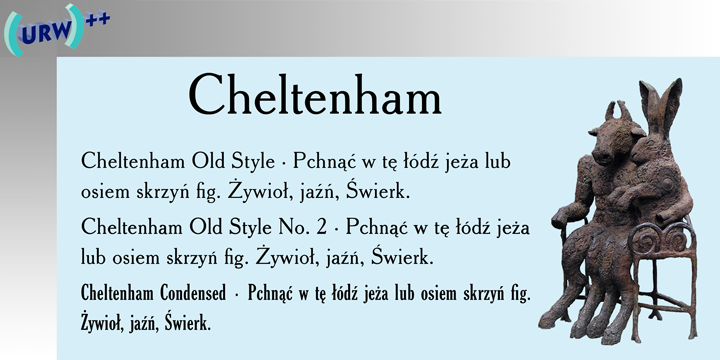
Cheltenham Old Style Font is ideal for book publishing, newspaper headlines, magazine layouts, academic papers, historical documents, legal briefs, luxury brand packaging, editorial design, and classic poster typography. This distinguished typeface works exceptionally well in both traditional print media and sophisticated digital publications where elegance and readability are paramount.
What makes Cheltenham Old Style Font exciting is its timeless sophistication and exceptional legibility that has made it a favorite among publishers for over a century. The font combines classical proportions with subtle modern refinements, creating a perfect balance between tradition and contemporary usability. Its distinctive character shapes and generous x-height ensure excellent readability even in smaller sizes, while its elegant serifs add a touch of scholarly authority to any text.
The Cheltenham Old Style Font family encompasses multiple weights including Light, Regular, Medium, Bold, and Black variations. Additionally, the family offers Italic versions for each weight, along with Condensed and Extended variants. This comprehensive range provides designers with complete typographic flexibility for complex editorial layouts and hierarchical text organization.
Whether you're working on academic publications, premium magazines, or heritage brand materials, Cheltenham Old Style Font Free Download brings distinguished elegance to your projects. Its proven track record in professional publishing and its ability to maintain character at any size make it an invaluable addition to any designer's typography toolkit for creating sophisticated, readable, and authoritative content.